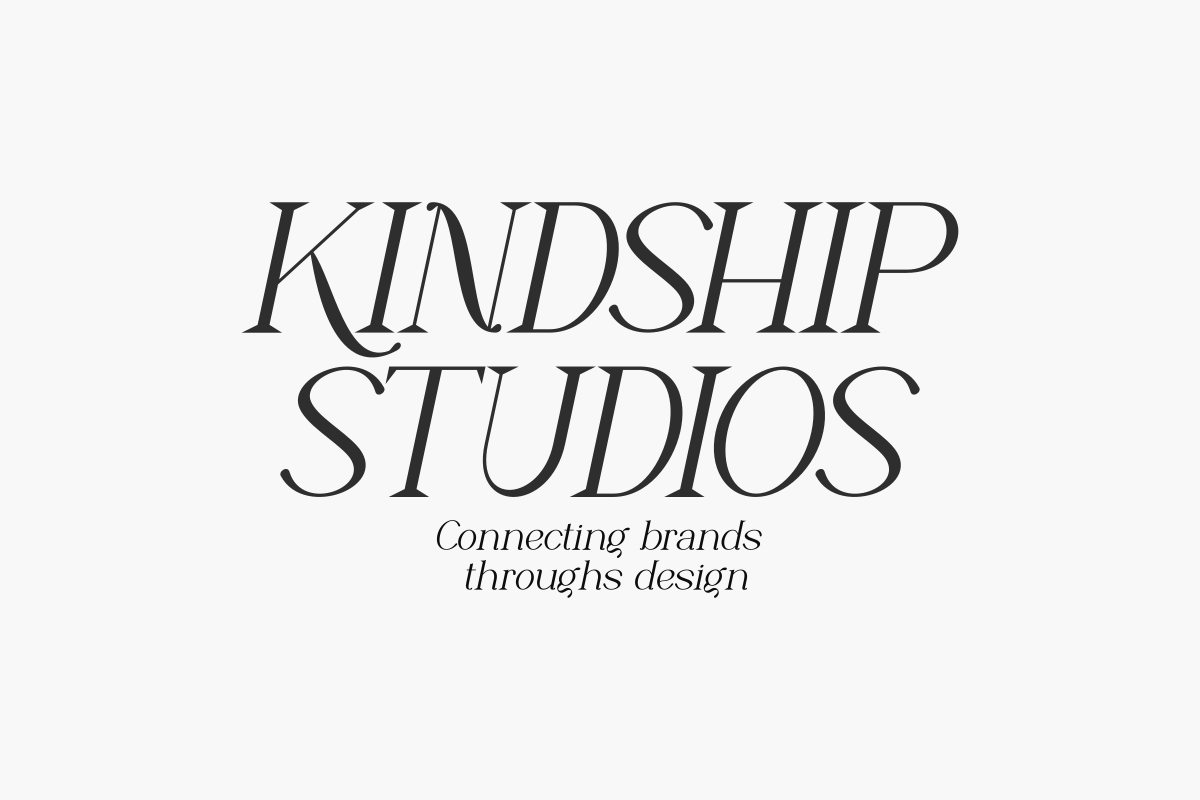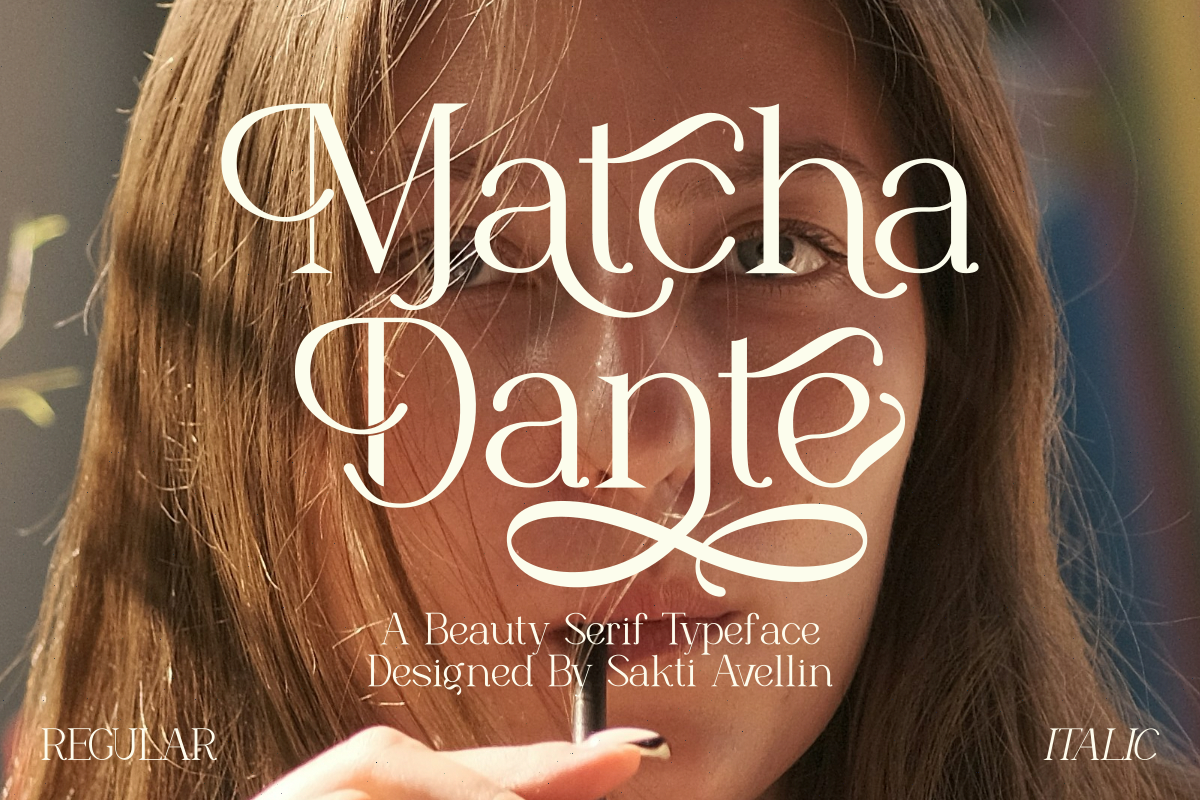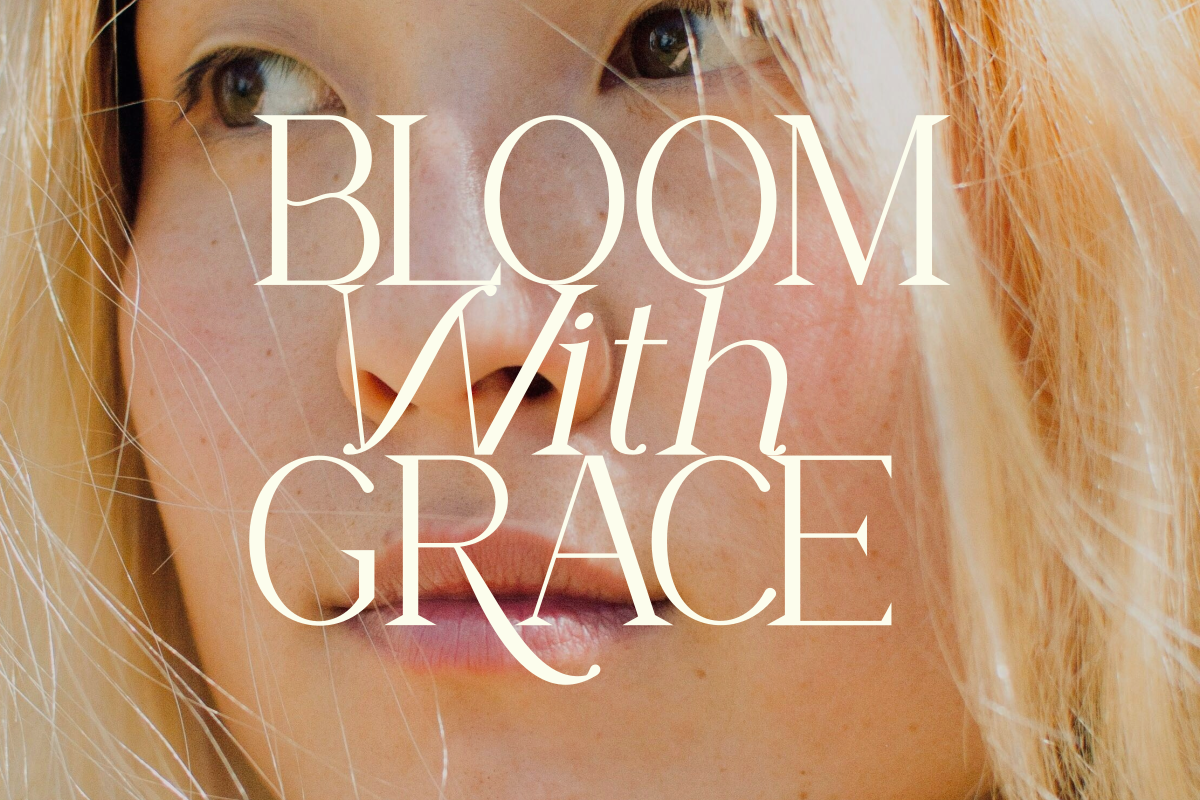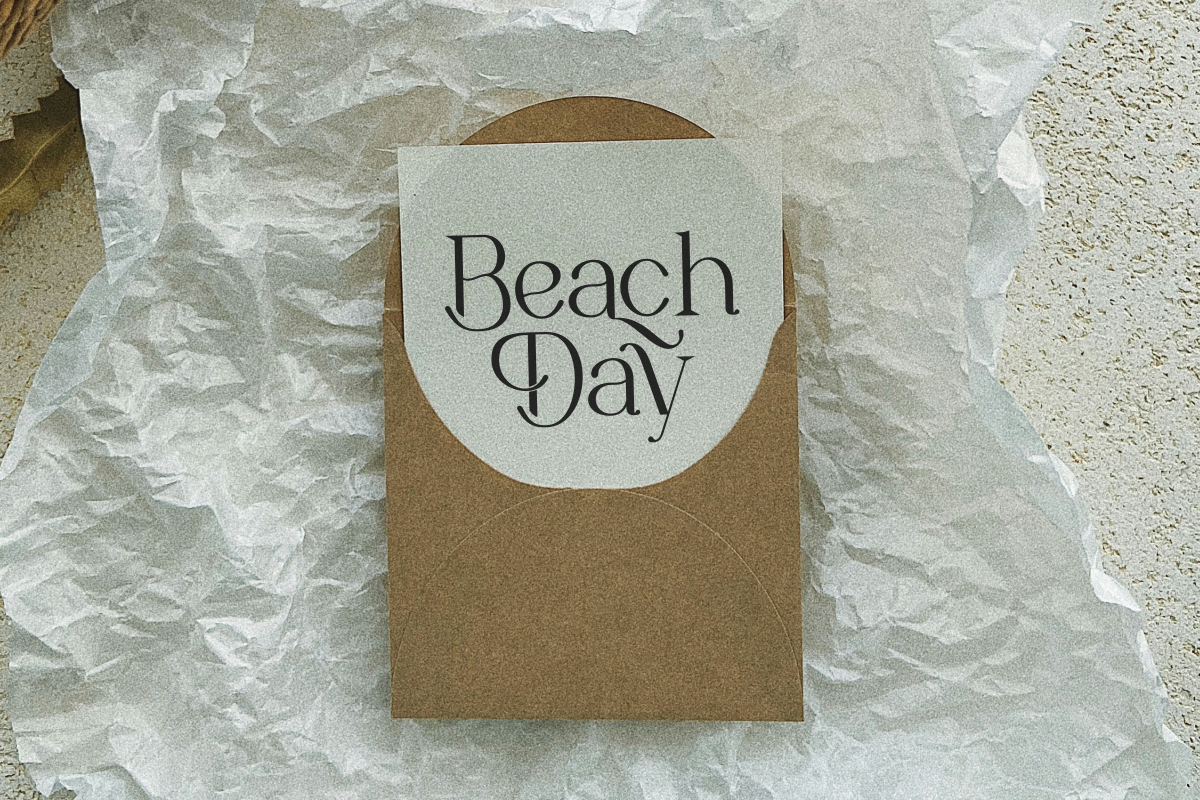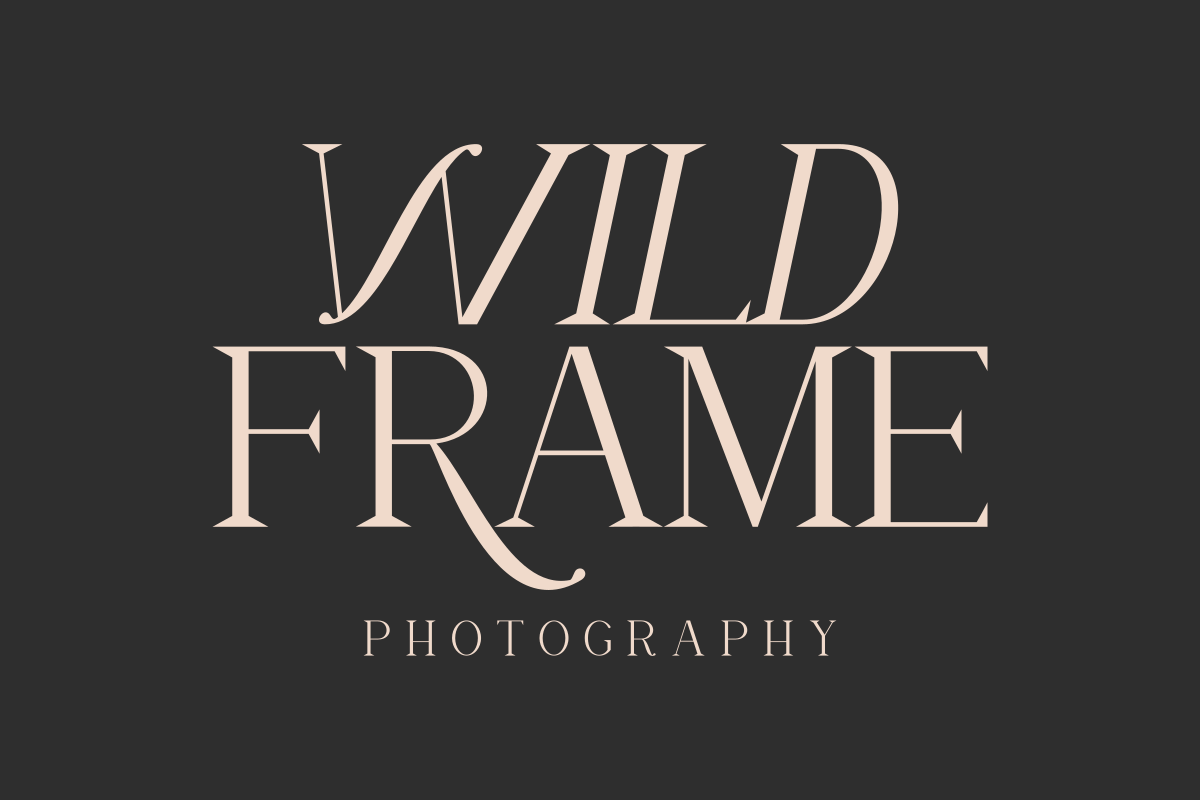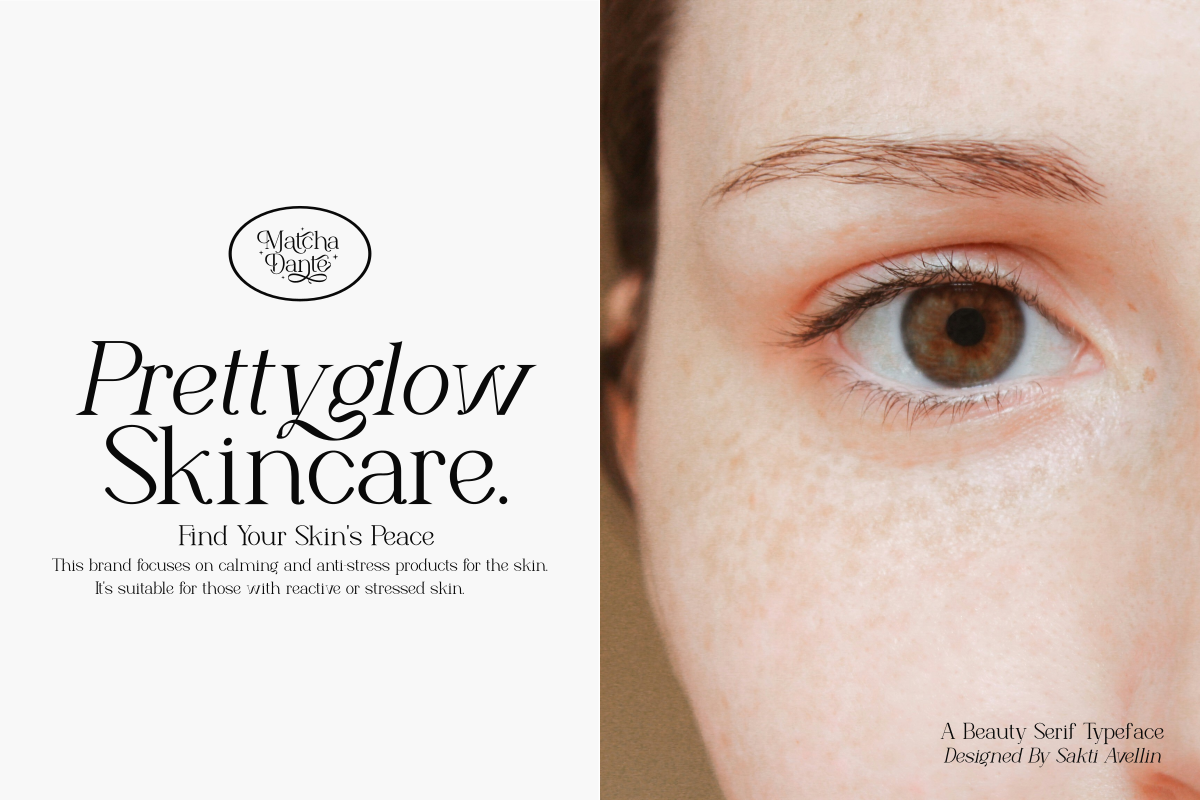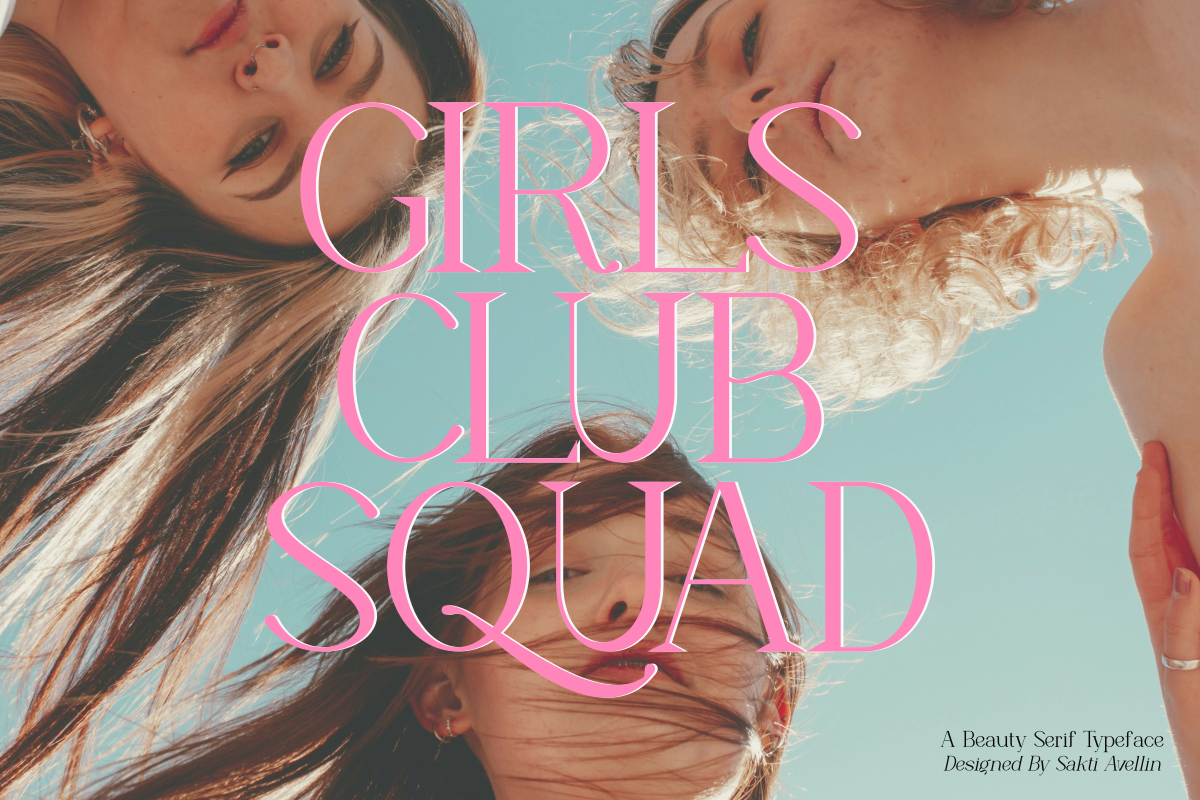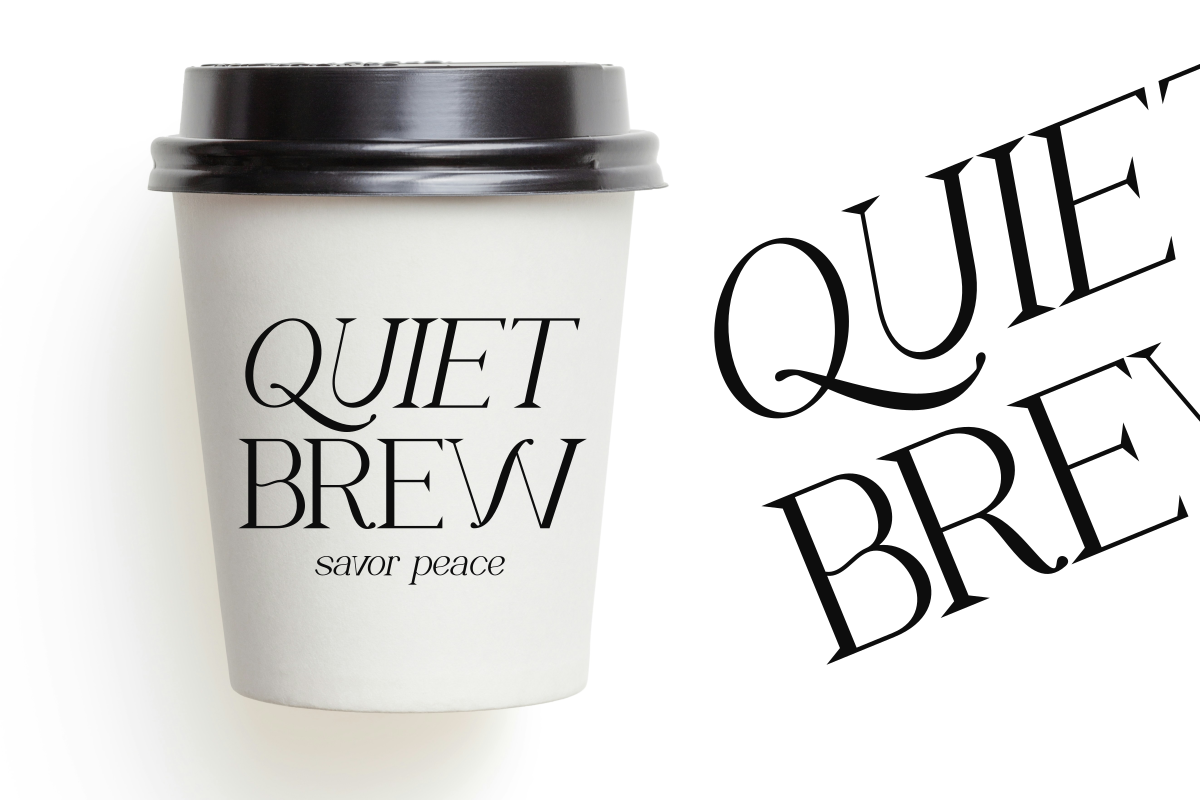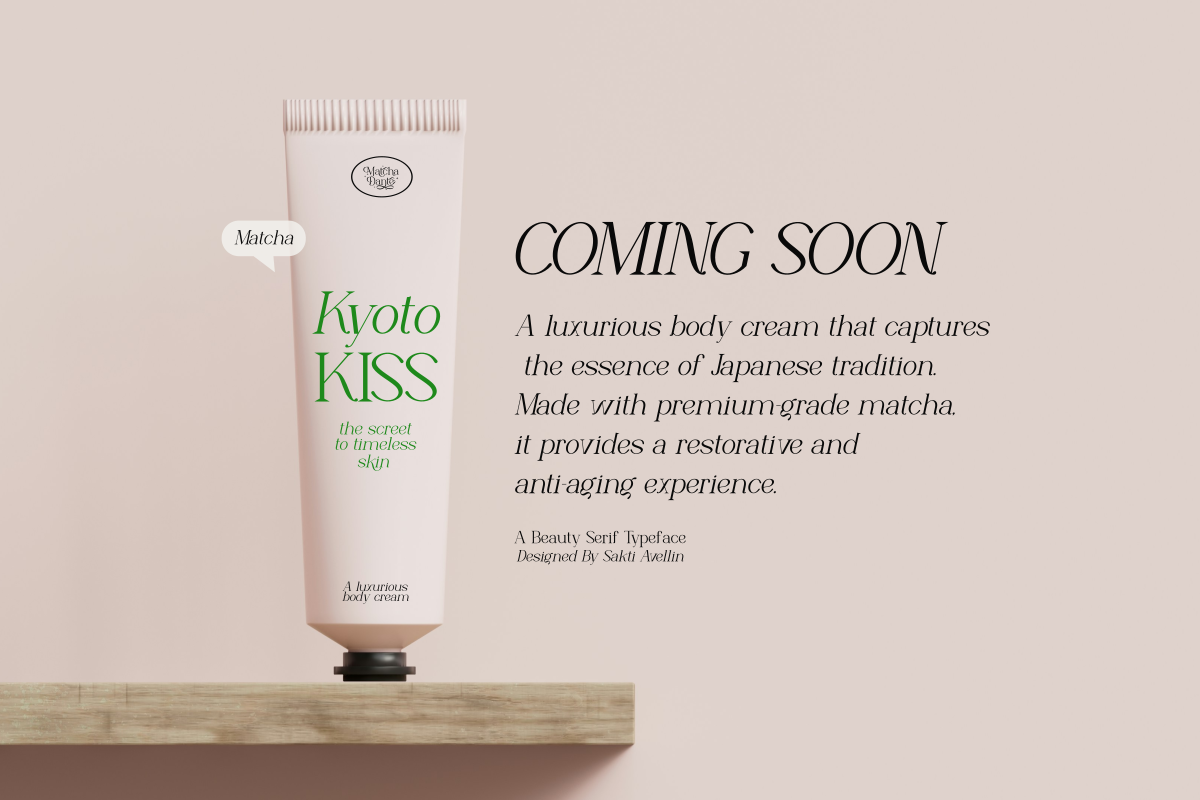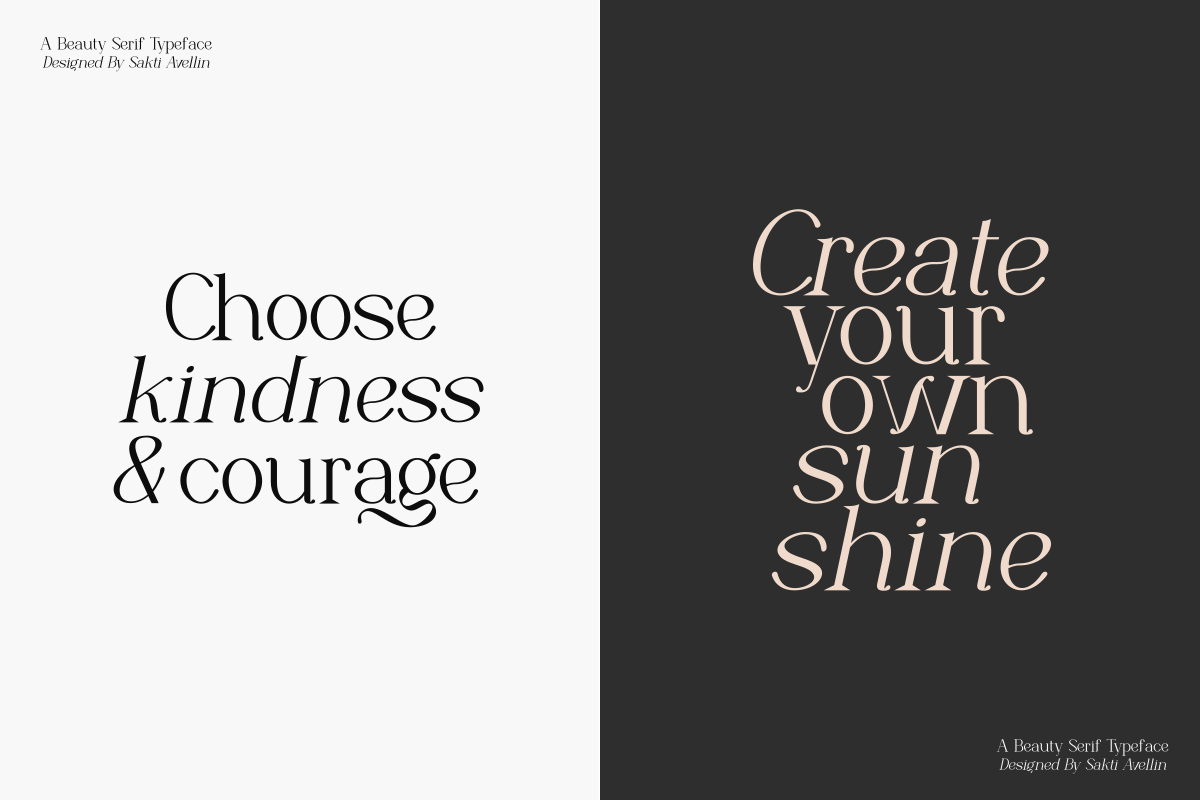
Matcha Dante - Beauty Serif Typeface
Matcha Dante is a stunning and elegant beauty serif typeface that boasts a sophisticated, modern, and high-fashion aesthetic. This versatile serif includes regular and italic styles, featuring delicate, flowing swashes and beautiful curves, making it essential for luxurious wedding invitations, high-end feminine logos, chic branding, fashion magazine layouts, and stylish social media graphics. Its distinctive, classic-yet-modern style ensures it is a powerful display typeface for headlines and product packaging, appealing to a trendy audience seeking sophistication with romantic flair. Add timeless elegance and charm to your creative work with this truly exquisite decorative serif font!